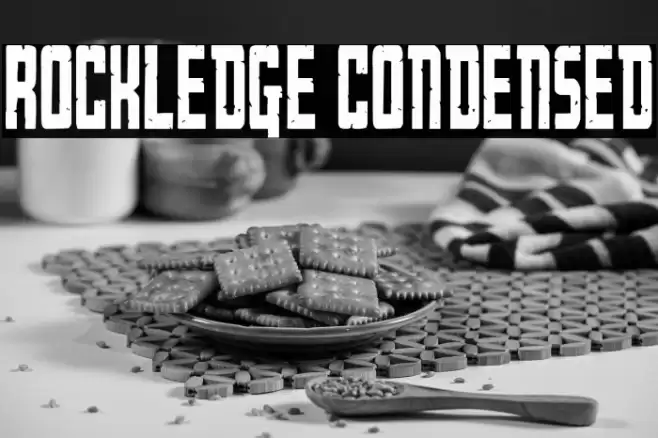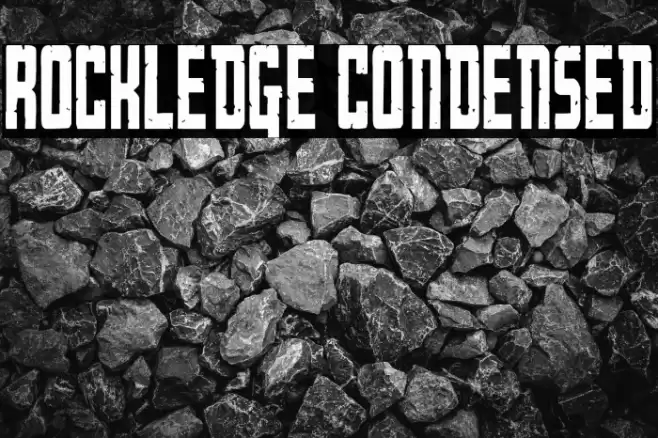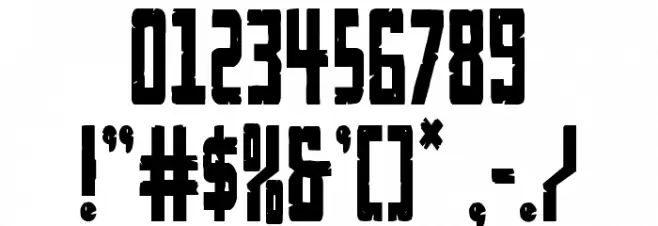
Rockledge Condensed Font
Rockledge Condensed Description
This font features a bold, condensed style with a rugged, distressed texture that gives it a vintage and industrial feel. The uppercase letters are tall and narrow, with sharp, angular edges that create a strong visual impact. The numbers and special characters maintain the same distressed aesthetic, adding to the overall cohesive look. This font's unique texture and condensed form make it stand out, ideal for projects that require a bold statement.
A bold, condensed font with a rugged, distressed texture from Uncategorized fonts.
- Proposed Projects: Ideal for posters, logos, branding, and any design that requires a vintage or industrial aesthetic.
- Character Spacing: Tight
- Overall Style: Vintage, Industrial